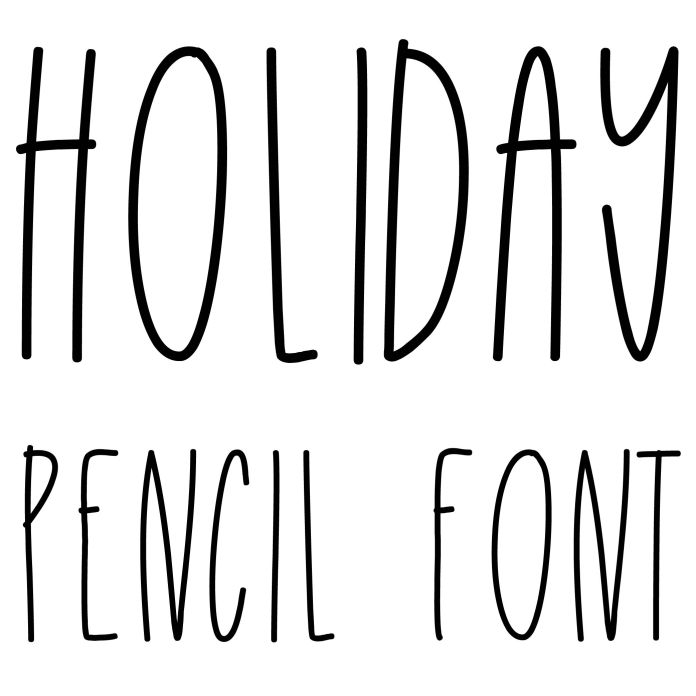
Cute handwritten farmhouse holiday font in a tall and skinny pencil, pen, marker style, fun for Halloween, Thanksgiving, Christmas crafts, decoration, signs, monograms, gifts, planners, notes, calendars, and personalization. Upper and lowercase, numbers, and basic punctuation.